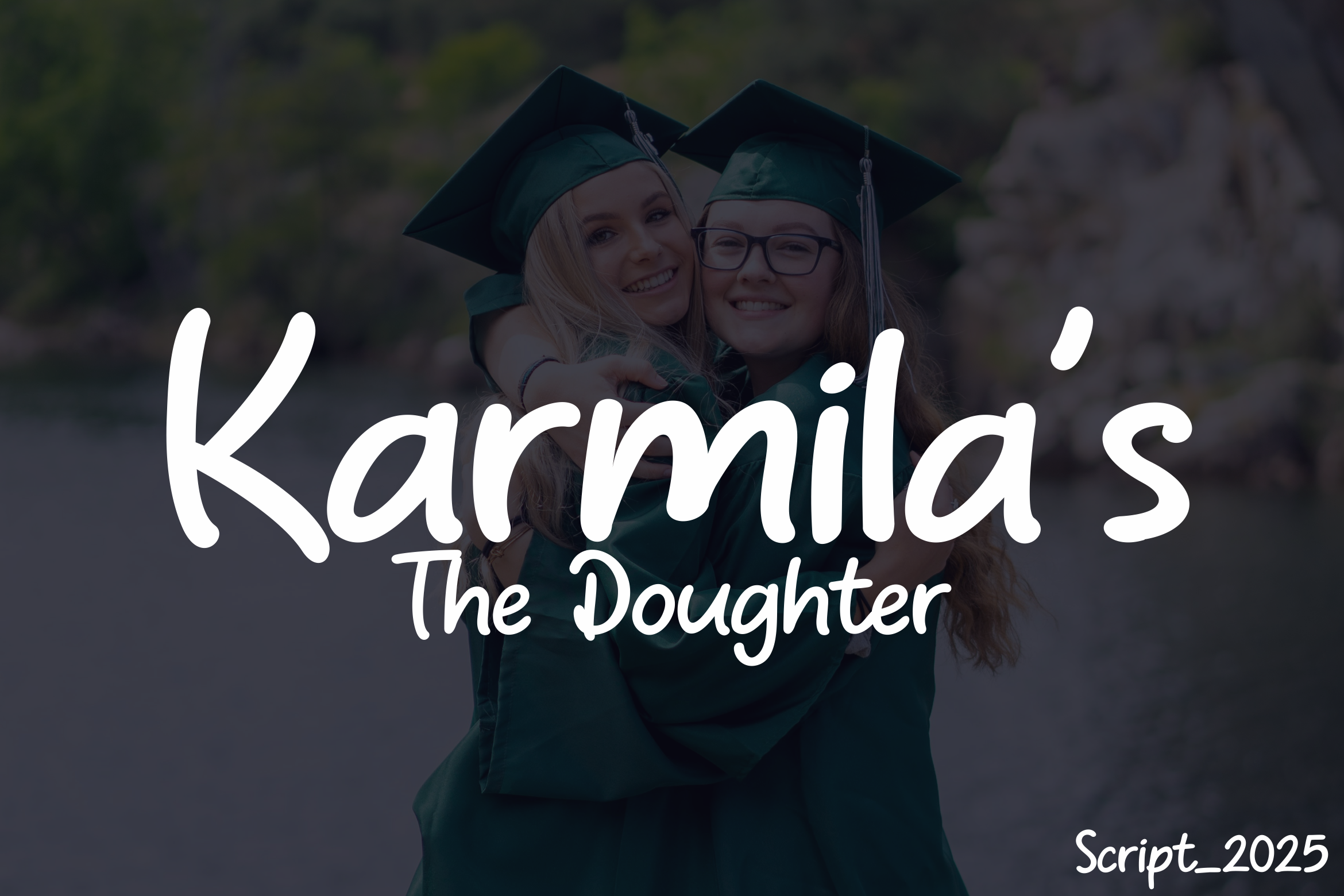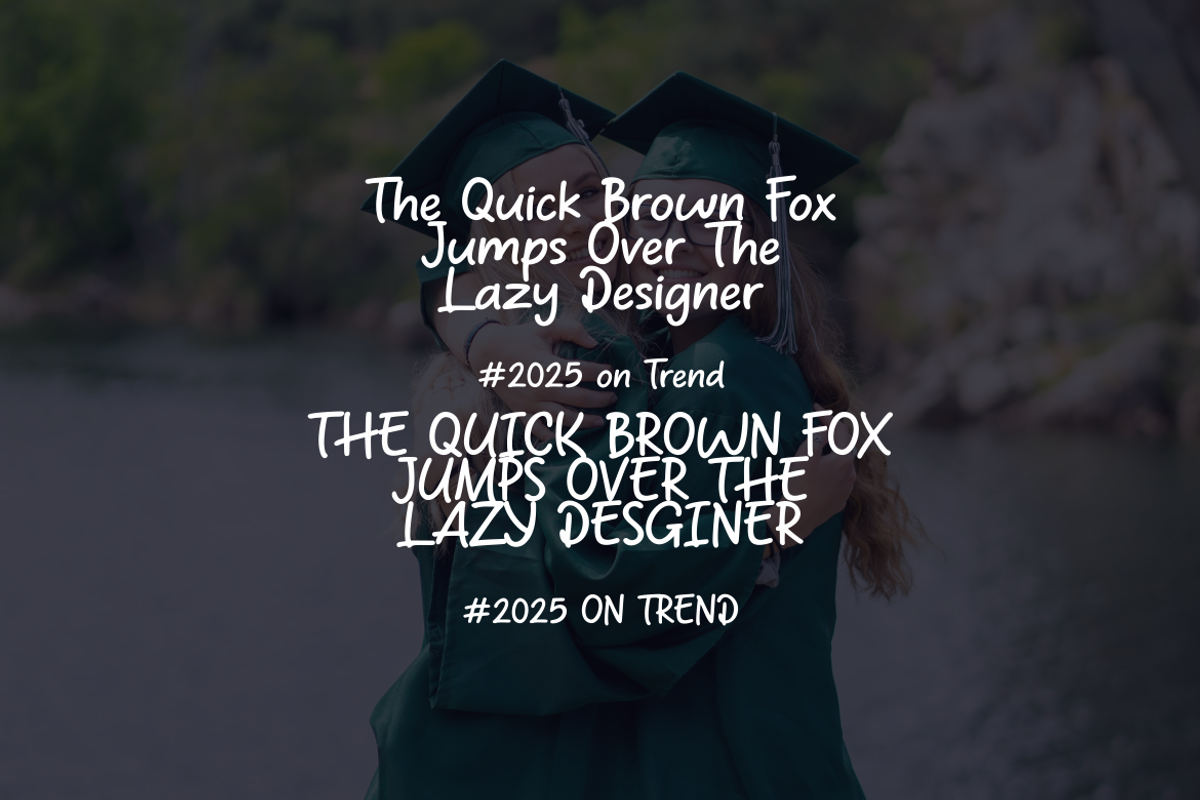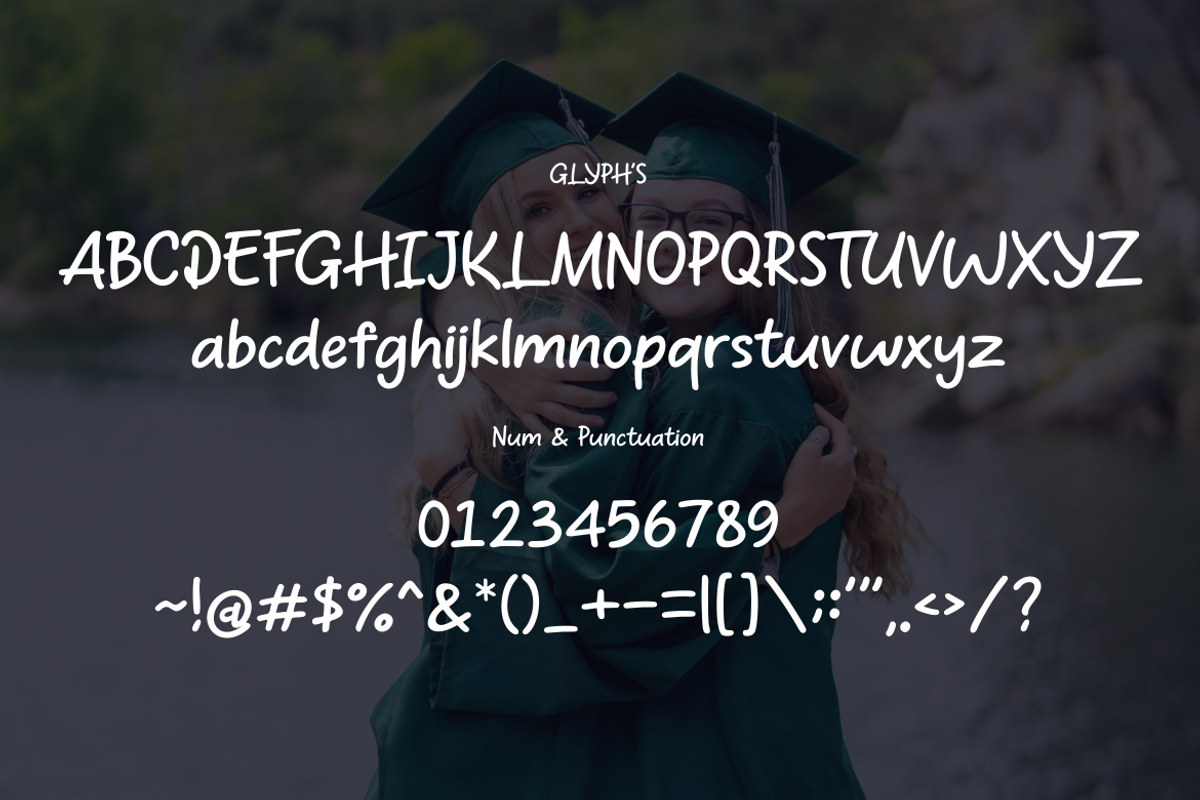
Karmila's The Doughter - Font Beauty
Karmila's The Doughter Font
Karmila's The Doughter is a beautifully crafted script font that embodies warmth, affection, and a strong sense of togetherness. Designed with elegance and fluid strokes, this font is perfect for expressing love and deep connections. It emphasizes harmony and a personal touch, making it ideal for projects that require sincerity and emotional depth.